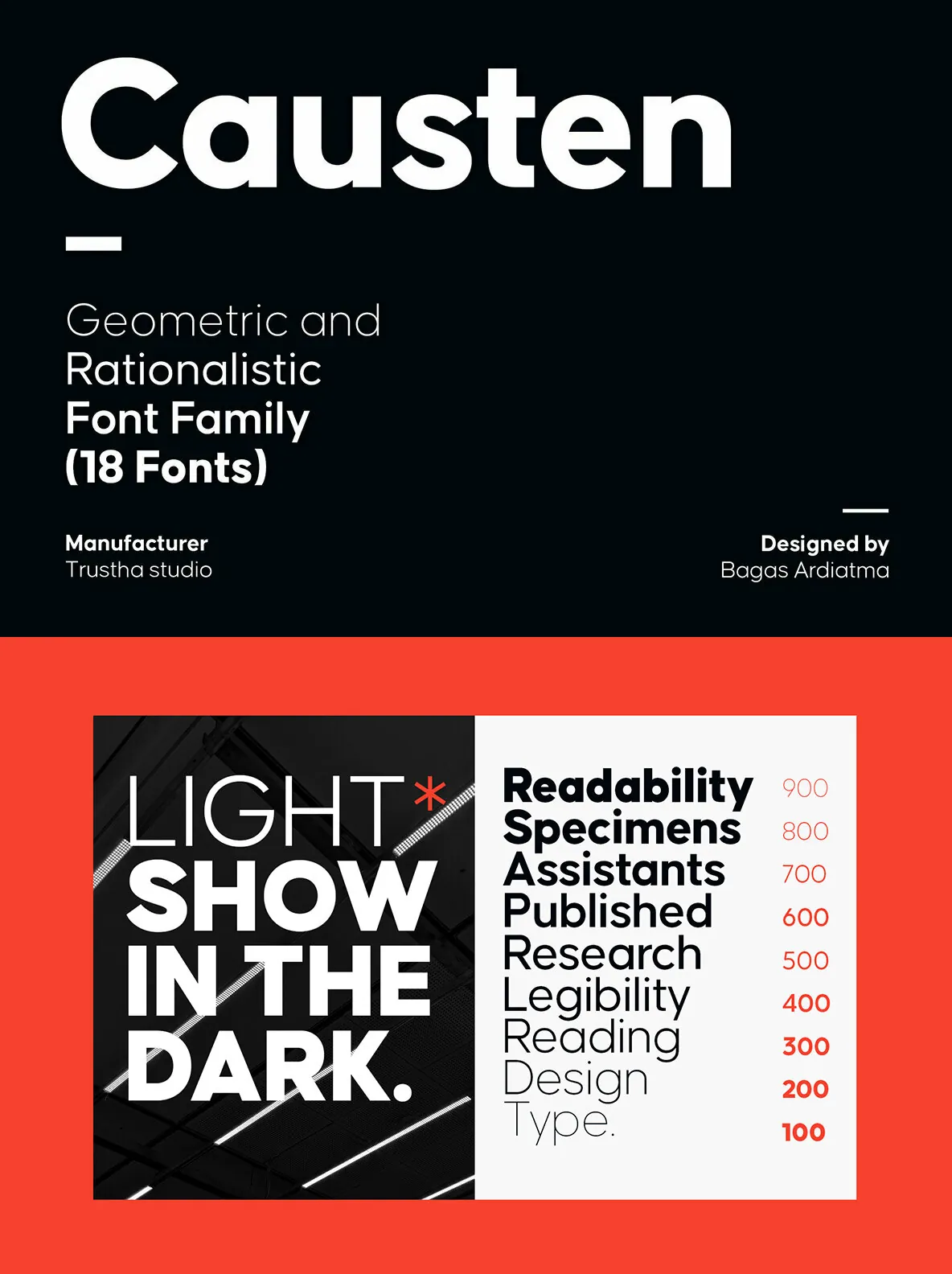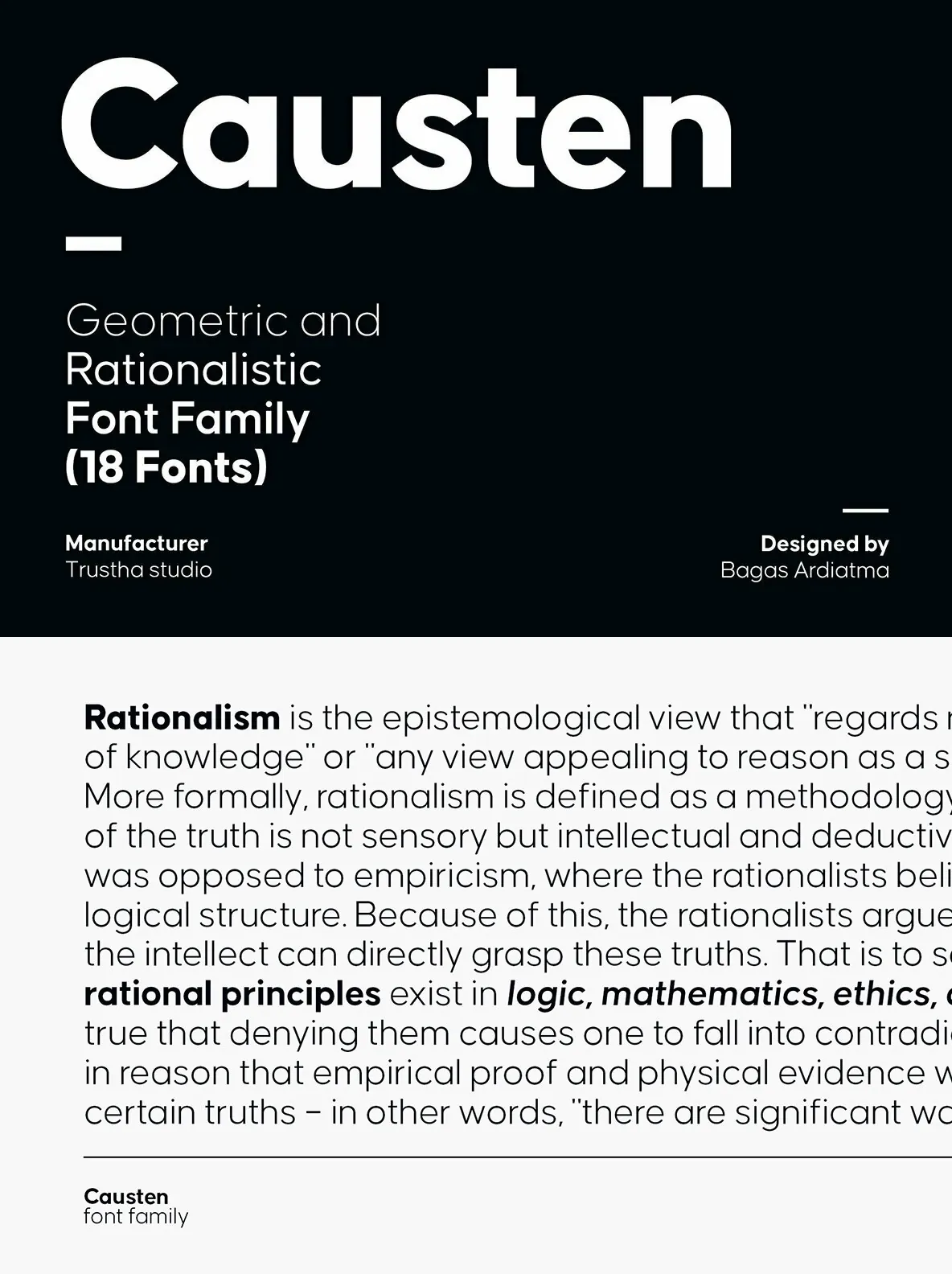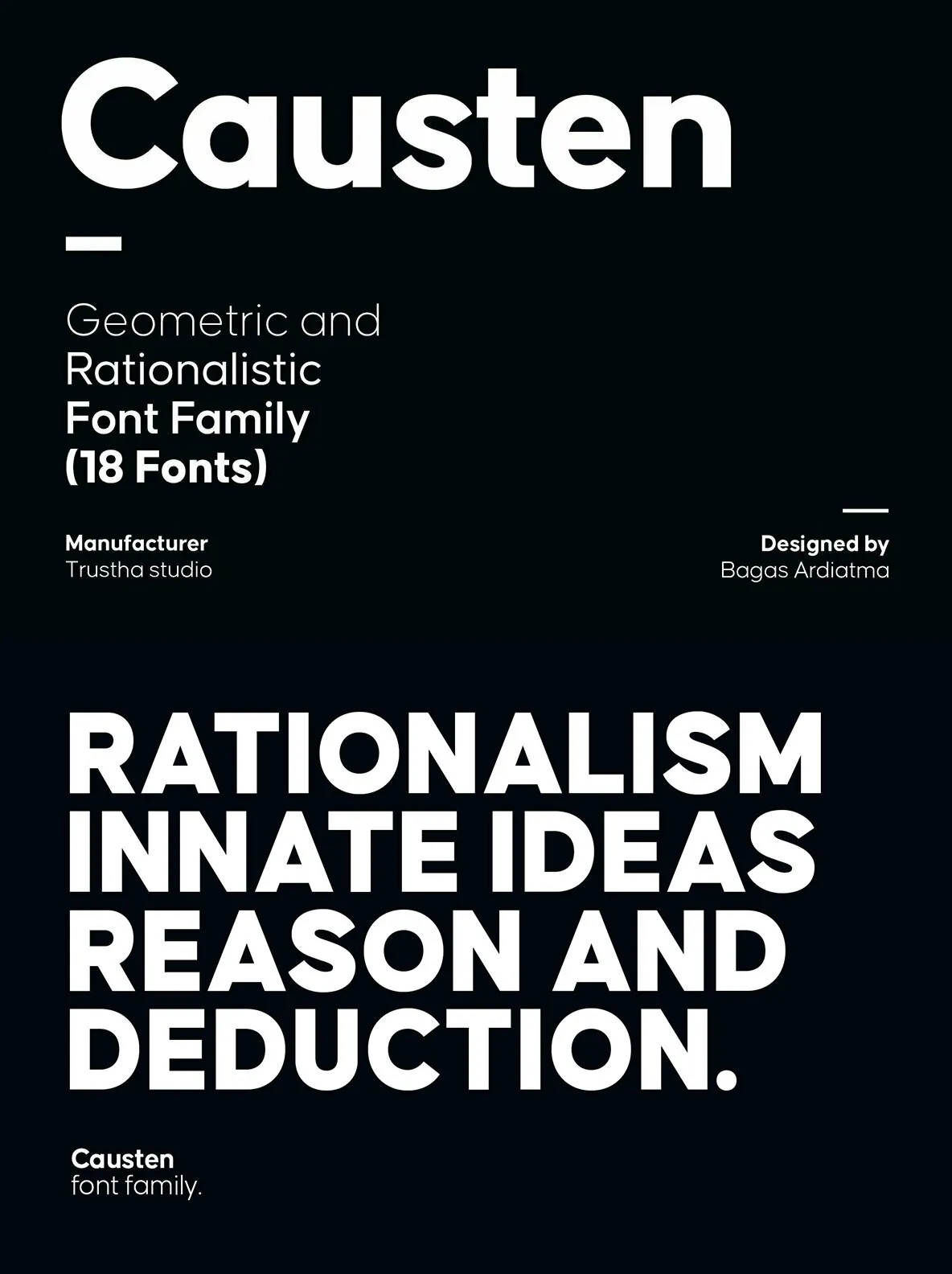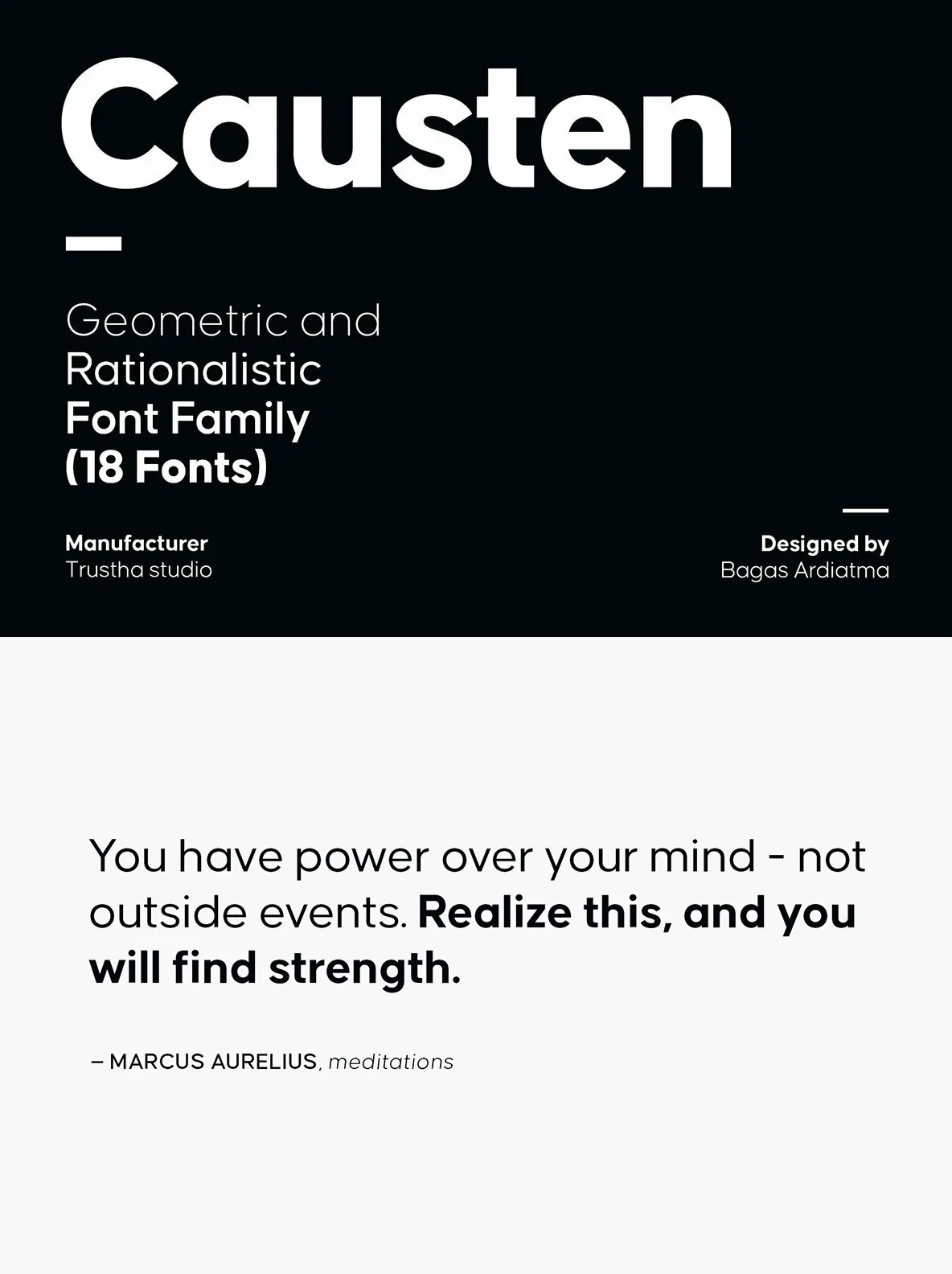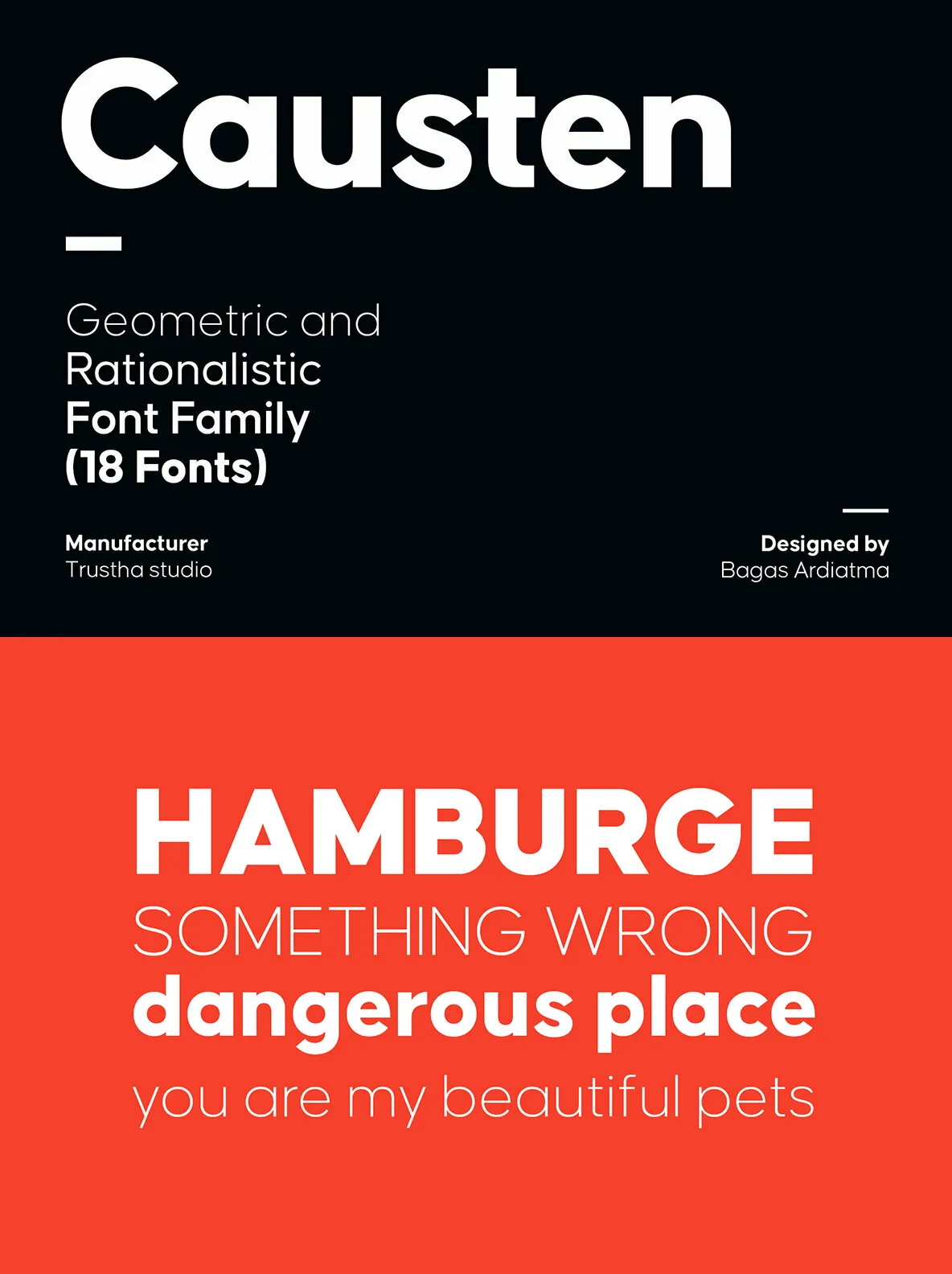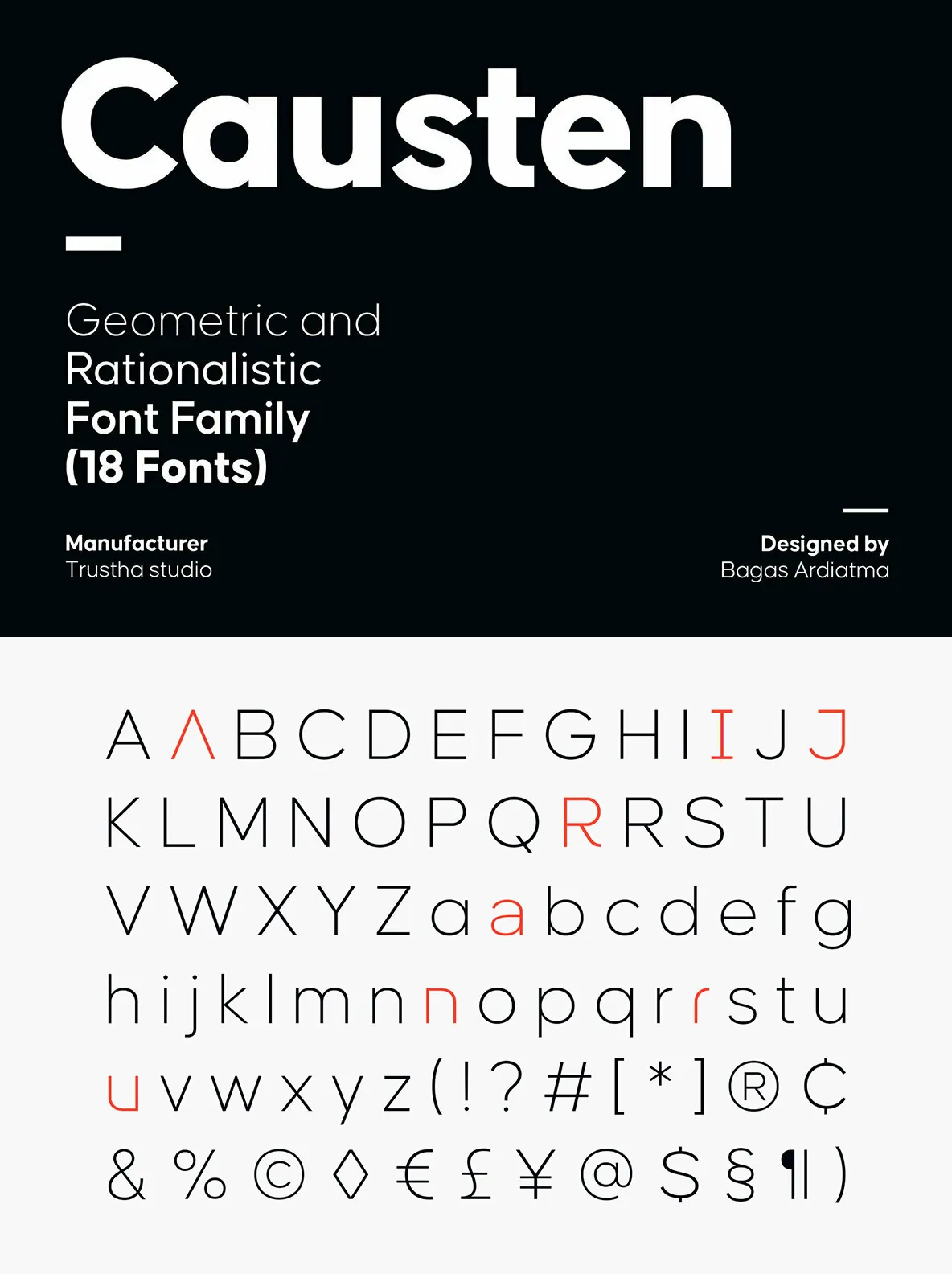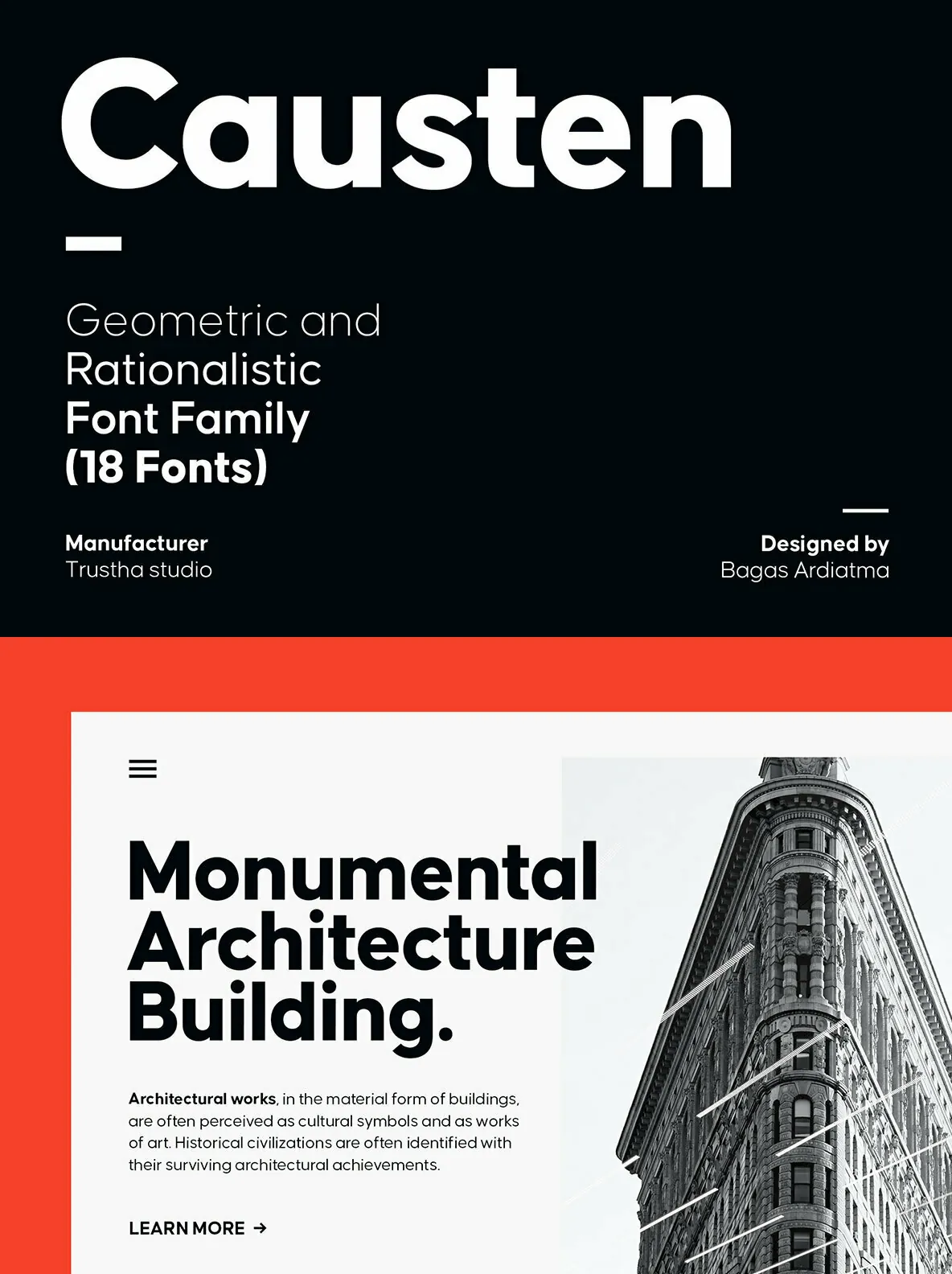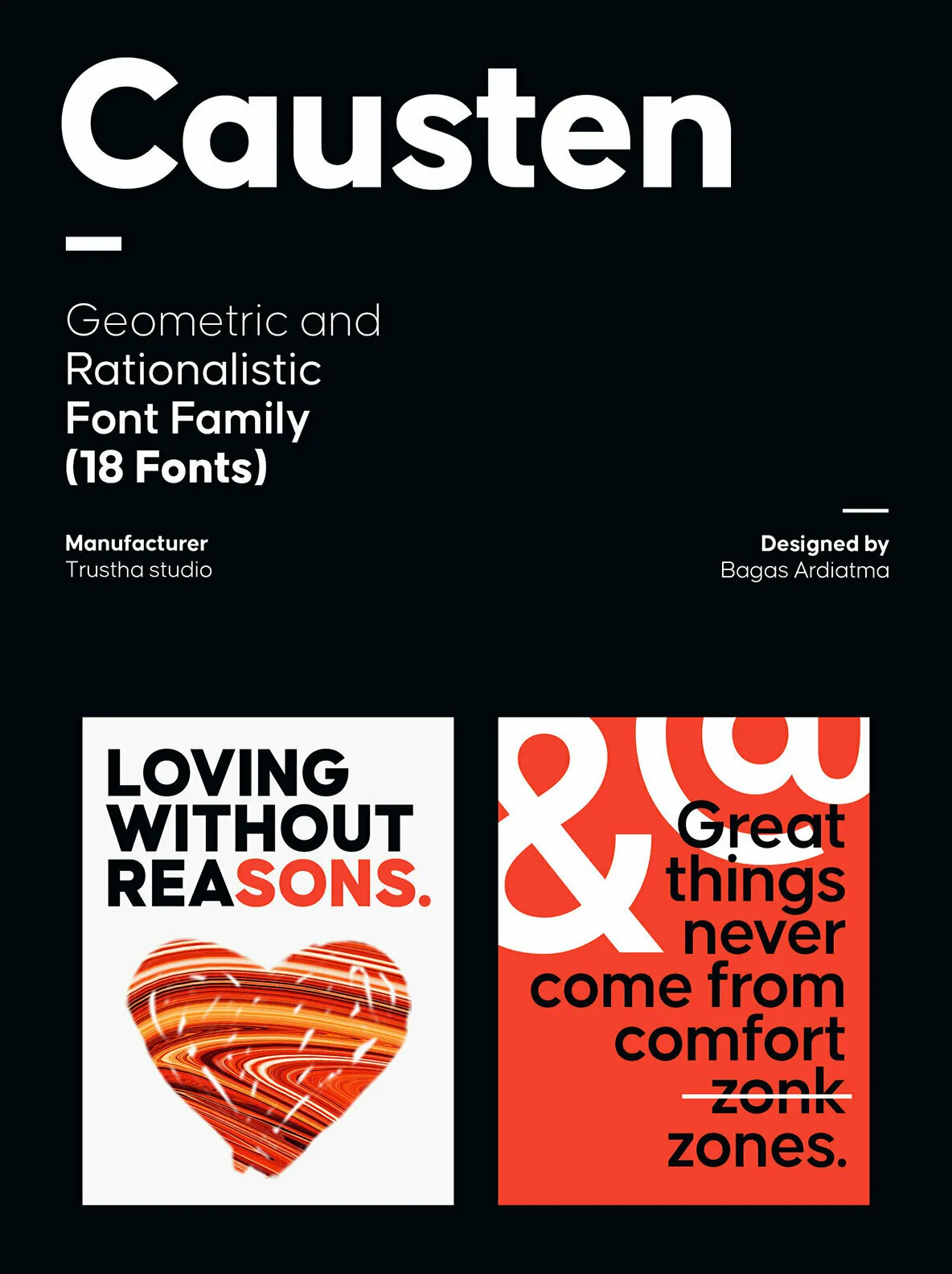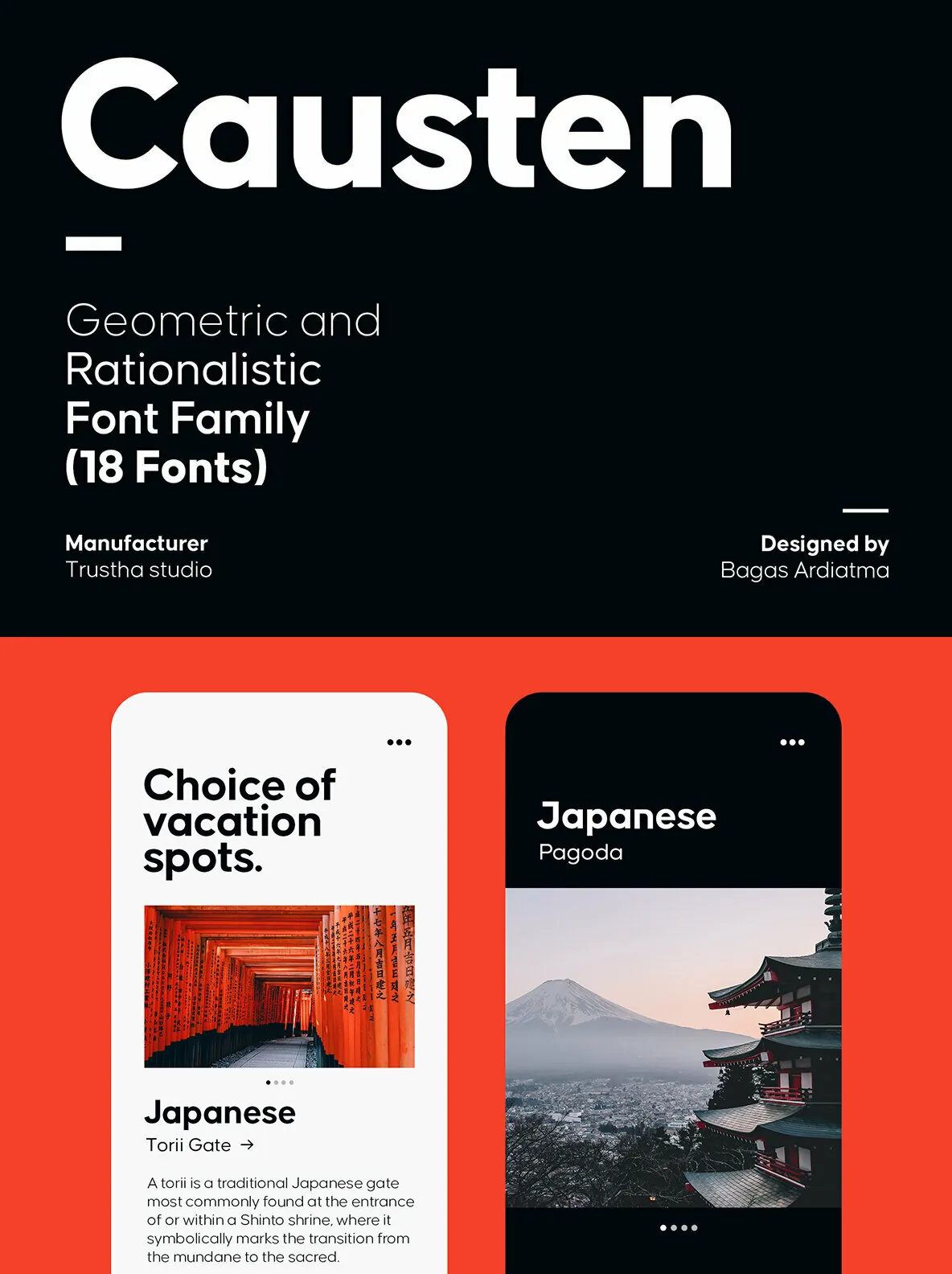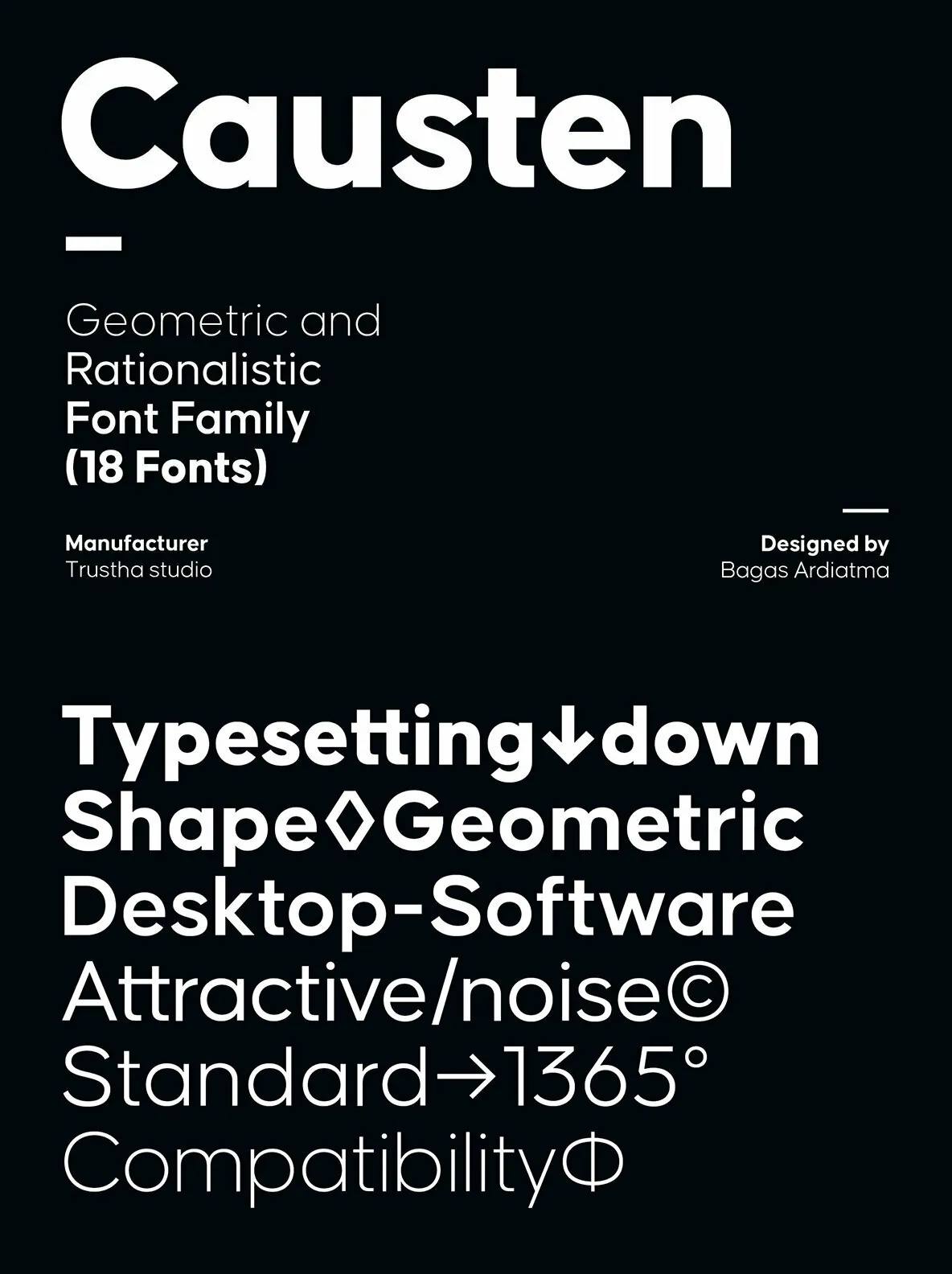
Causten — A Clean Sans for Daily Use
Causten is a sans serif font design published by trustha. Its straightforward letterforms suit modern digital interfaces, brand systems, and editorial layouts where clarity matters. Use it for UI text, headlines, packaging, and identity work that needs a calm, contemporary tone without distraction.
Designed for practical typography, Causten reads cleanly across sizes and environments. It fits neatly into professional workflows for web and print, and it pairs easily with other typefaces when you need a neutral, dependable sans serif voice. Causten by trustha brings a measured, modern presence to projects that demand consistency.